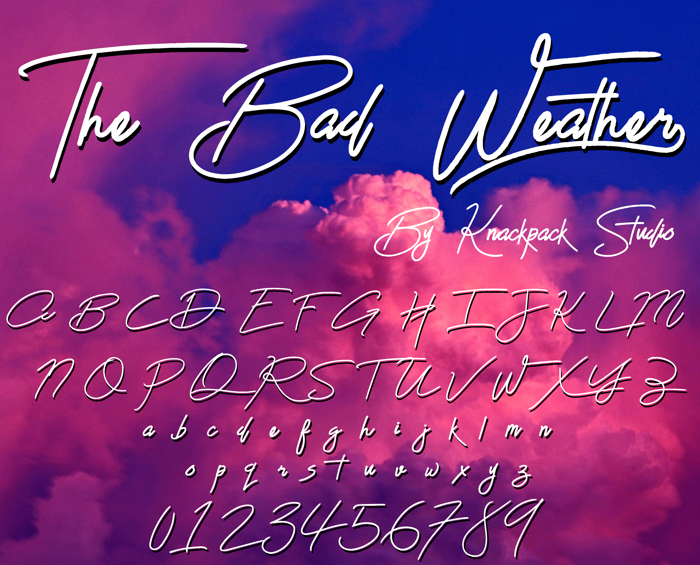
The Bad Weather Demo Font
- Handmade script inspired font perfect on your school projects, covers, etc.
- Lifestyle modern brush font for branding, website, mobile app etc.